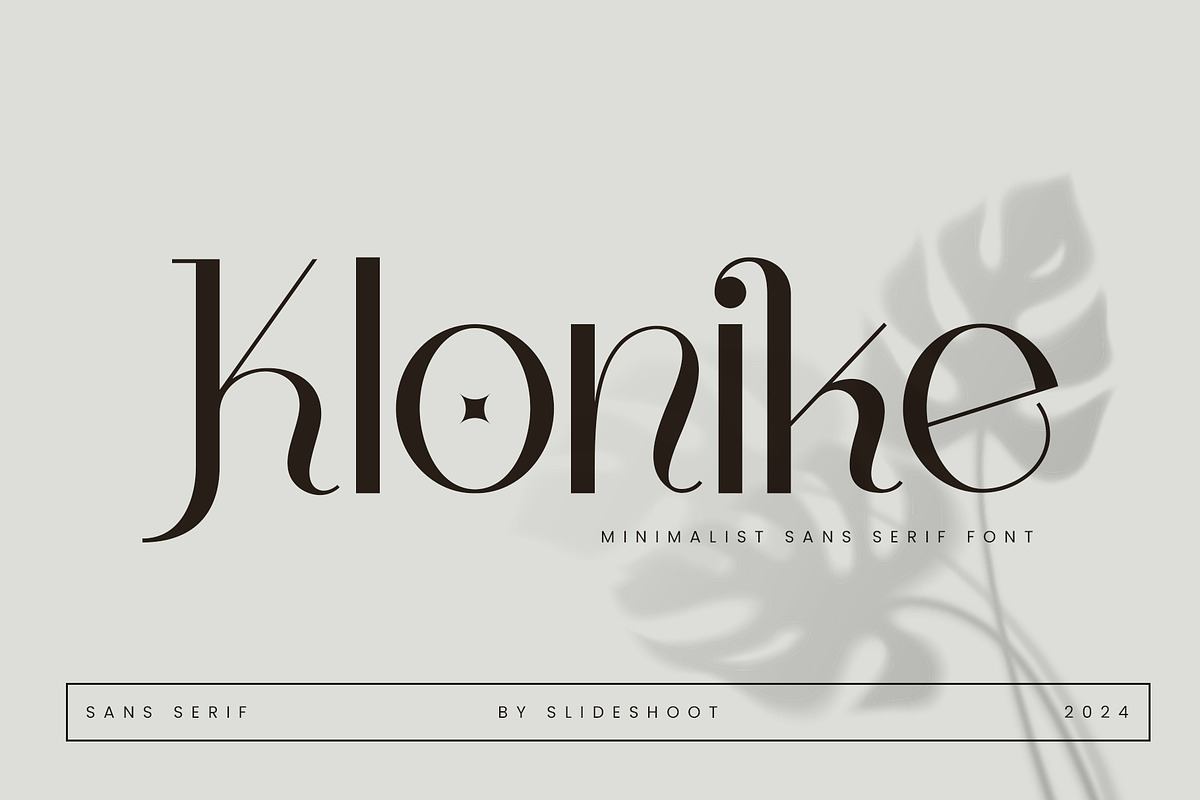
Klonike Sans Serif Font Free Download
Klonike Sans Serif Font Free Download is a bold and modern typeface built to bring clarity and impact to your design work. Please note, you are required to purchase this font for commercial use. It is available for free download for testing and personal projects only.
With its clean lines, strong presence, and geometric style, Klonike is ideal for branding, headlines, posters, website design, and editorial layouts. Its minimalist structure ensures legibility while still giving your work a contemporary, professional edge.
Choosing Klonike Sans Serif Font Free Download means adding a versatile and stylish typeface to your creative toolkit. The font installs easily and is fully compatible with all major design platforms, allowing you to get started quickly and efficiently. Whether you're crafting bold statements or subtle text, Klonike brings a modern, confident tone to every project.